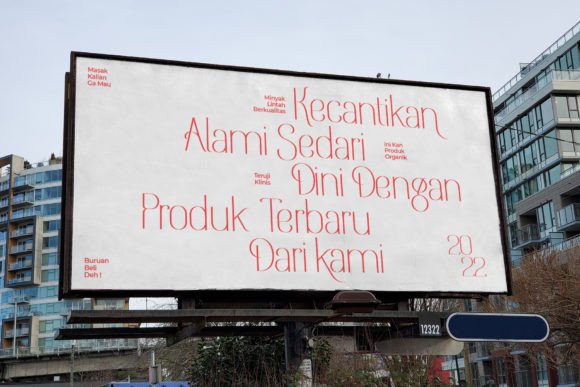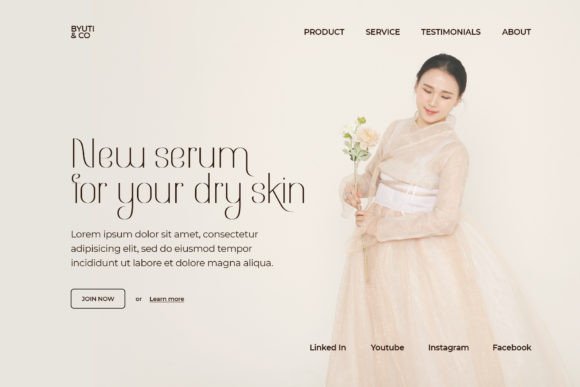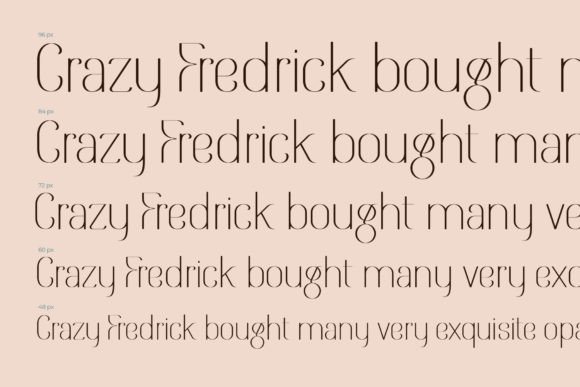
Byutih Font
Byutih is an elegant, delicate and uniquely designed sans serif font. It is PUA encoded which means you can access all of the glyphs and swashes with ease! Fall in love with its incredibly versatile style and use it to create spectacular designs!